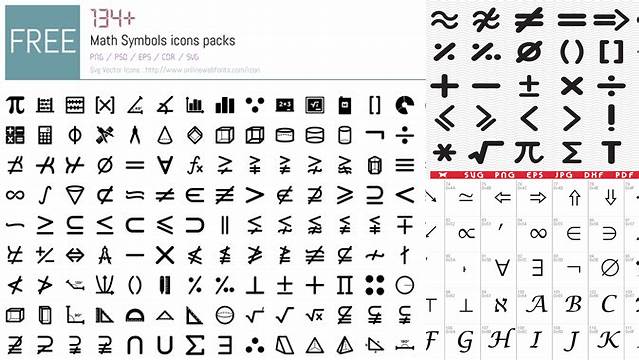
Free Maths Symbols Font: Download & Guide
Hey guys! Ever found yourself staring at a math equation and wishing you had a font that could actually display those symbols properly? Well, you're in luck! This article is your ultimate guide to maths symbols fonts, offering you free downloads and everything you need to know to make your documents look sharp and professional. We'll dive into the world of mathematical typography, exploring different font options, how to download and install them, and even some handy tips to use them effectively. Whether you're a student, a teacher, a researcher, or just someone who loves to dabble in equations, this guide is for you. Let's get started and unlock the power of perfectly rendered math symbols!
Why You Need a Dedicated Maths Symbols Font
Okay, so why bother with a special font for maths symbols, right? Can't you just use the regular fonts that come with your computer? Well, the answer is a resounding no, my friends! Standard fonts often fall short when it comes to displaying complex mathematical expressions. They might lack certain symbols, render them incorrectly, or simply not look as clean and polished as they should. Using a dedicated maths symbols font ensures that your equations are displayed accurately and consistently. This is crucial for several reasons. First and foremost, it's about clarity. A well-formatted equation is easier to read and understand. When symbols are rendered properly, there's less room for confusion, and the reader can focus on the math itself. Secondly, using a specialized font improves the professionalism of your work. Whether you're writing a research paper, a textbook, or even a simple worksheet, using the right font shows that you care about presentation and attention to detail. Finally, it's about completeness. Many maths symbols fonts include a comprehensive set of characters, covering everything from basic arithmetic to advanced calculus and beyond. This means you'll have access to all the symbols you need, no matter how complex your equations become. So, ditch the default fonts and embrace the world of dedicated math fonts. Trust me; your equations (and your readers) will thank you for it. The difference is truly remarkable, and once you start using a dedicated font, you'll never go back. It's like upgrading from a bicycle to a sports car – the experience is just so much smoother and more enjoyable.
The Advantages of Using Specialised Fonts
Let's break down some specific advantages of using specialized maths symbols fonts to drive the point home. First, and possibly most importantly, is symbol coverage. Specialized fonts are designed to include a comprehensive range of mathematical symbols, including Greek letters, operators, relations, and various notations. Standard fonts often lack many of these symbols, or their representation might be limited. This is crucial for accurately representing mathematical concepts. Next comes visual consistency. These fonts are designed with mathematical notation in mind, ensuring that symbols are visually consistent with each other. This creates a cohesive and professional look for your equations. The spacing, weight, and design of the symbols are all optimized for readability, making your equations more pleasing to the eye. Then there's the aspect of compatibility. Specialized fonts are designed to work seamlessly with mathematical typesetting systems like LaTeX and other document preparation tools. This ensures that your equations will render correctly across different platforms and devices. Beyond all of this, there's the boost in professionalism. Whether you're a student writing a paper or a teacher creating materials, using the right font shows that you care about your work and that you pay attention to details. Finally, the time-saving factor has to be noted. By using a dedicated font, you won't need to spend time manually inserting symbols or trying to create them using alternative methods. It streamlines your workflow and lets you focus on the math itself. In a nutshell, opting for a specialized maths symbols font is a smart move, offering clarity, consistency, and a professional edge to all your mathematical endeavors.
Free Maths Symbols Font Options: Where to Find Them
Alright, let's get to the good stuff: free maths symbols fonts. You don't have to break the bank to get access to high-quality mathematical typography. There are tons of free options available online, and we're going to point you in the right direction. One of the most popular and versatile choices is STIX Two Math. This font is designed to be a comprehensive, high-quality, and open-source font family. It's perfect for scientific and mathematical publishing, and it includes a vast array of symbols. You can find it on various font websites or through its official project page. Another excellent option is the Latin Modern Math font, which is a derivative of the well-regarded Computer Modern fonts. It provides a robust set of mathematical symbols and is widely used in academic contexts. Check out font repositories like CTAN (Comprehensive TeX Archive Network) for this and many other related fonts. When you're searching for fonts, make sure to look for options that are licensed under an open-source license, such as the SIL Open Font License, which allows for free use and distribution. Also, keep an eye out for fonts that are specifically designed for mathematical typesetting systems like LaTeX, as they often have excellent symbol coverage and design. Remember to always check the font's license before using it, especially if you plan to use it for commercial purposes. You'll also want to make sure the font supports the characters you need. Most math fonts will include Greek letters, but some may have more extensive coverage of specialized symbols. So, whether you're a student, a teacher, or a researcher, these free options provide a great starting point for creating professional-looking mathematical documents. Don't be afraid to explore and experiment to find the font that best suits your needs and preferences. The web is filled with amazing resources that you can use without paying a cent. Happy downloading!